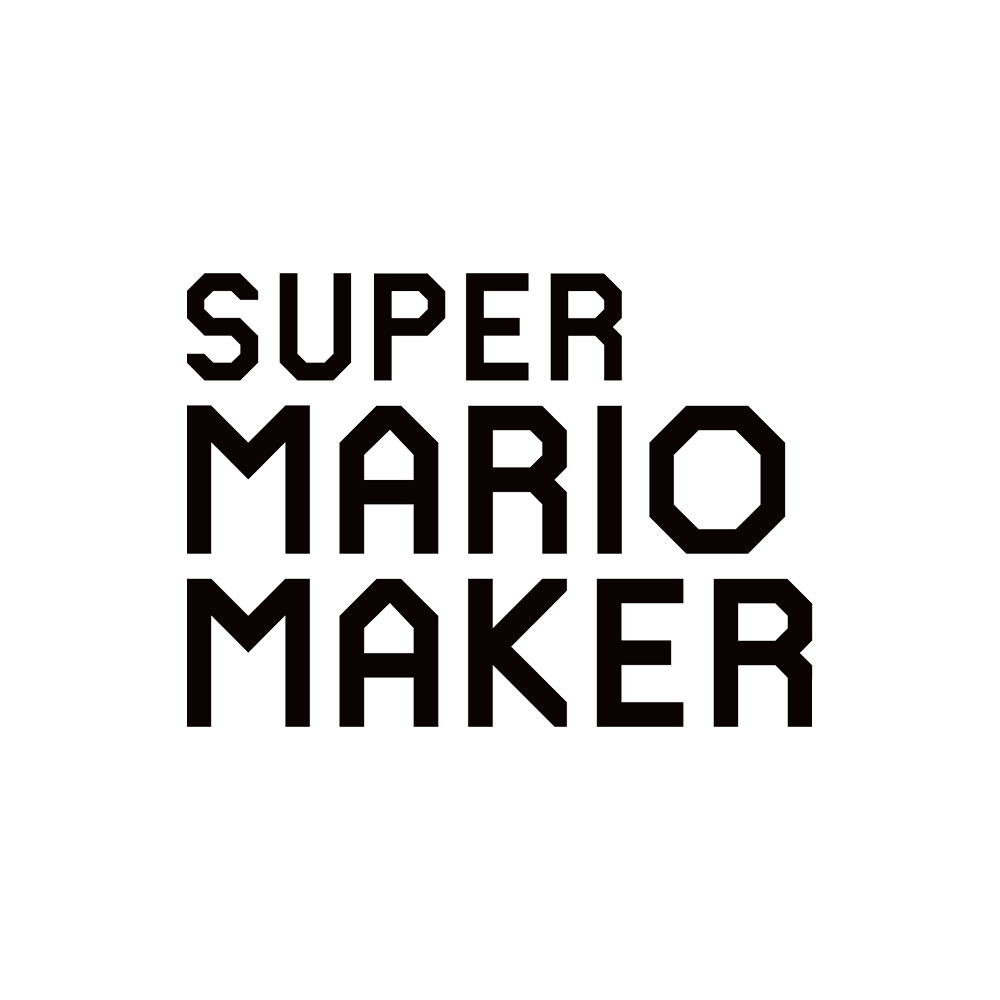
Super Mario Maker Font
GameSuper Mario Maker is a video game that allows players to create and share their own custom-made Super Mario levels with others, as well as play levels created by other users from around the world. It was released by Nintendo in 2015 for the Wii U console and later in 2019 for the Nintendo Switch.
The Super Mario Maker font was custom made but Github user yell0wsuit recreated the font as MarioMaker. You can find licence information here.